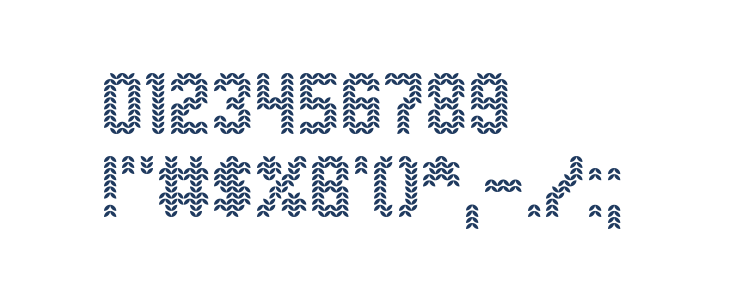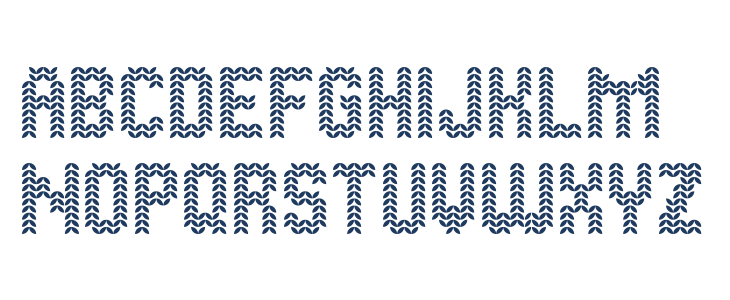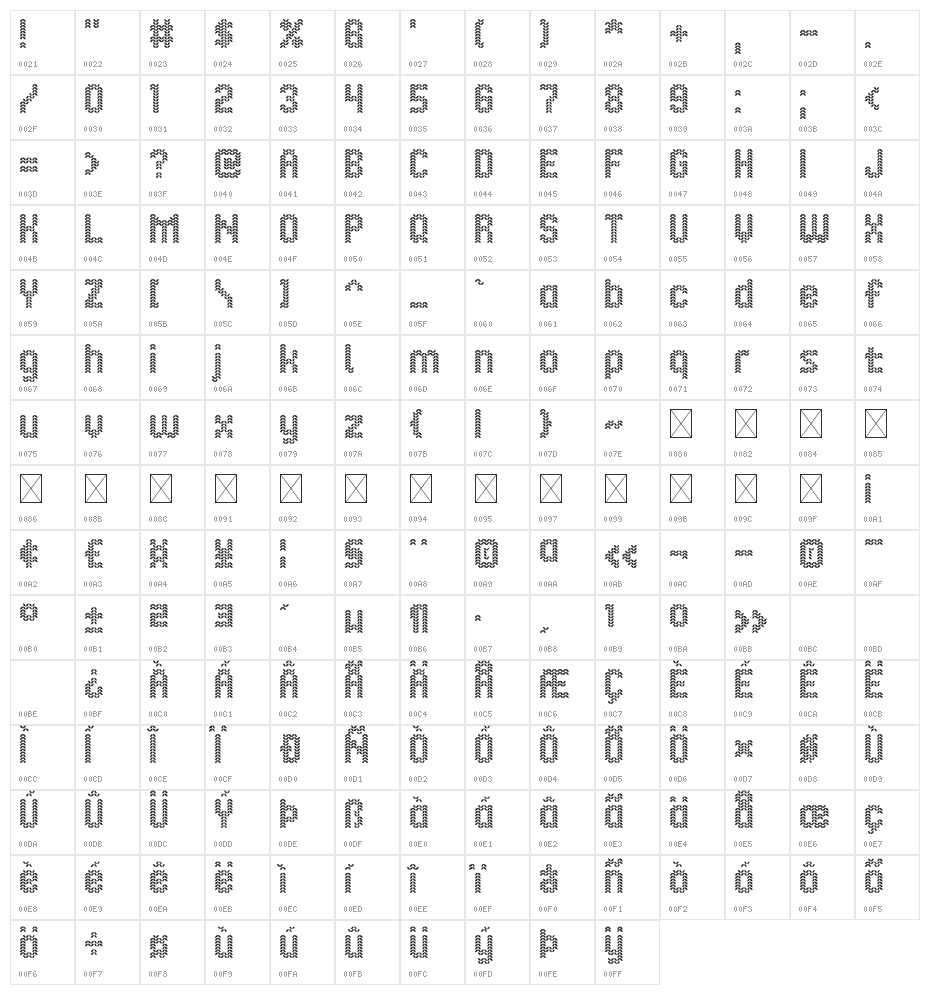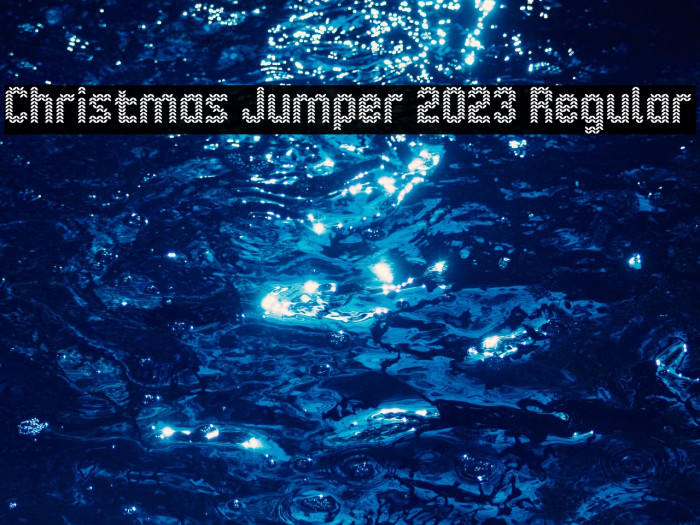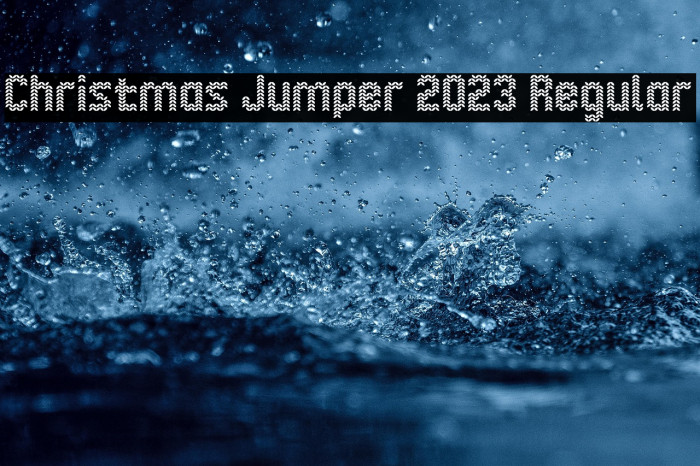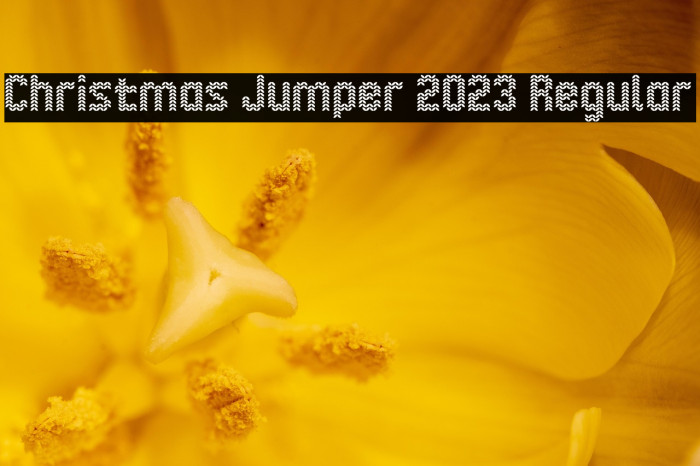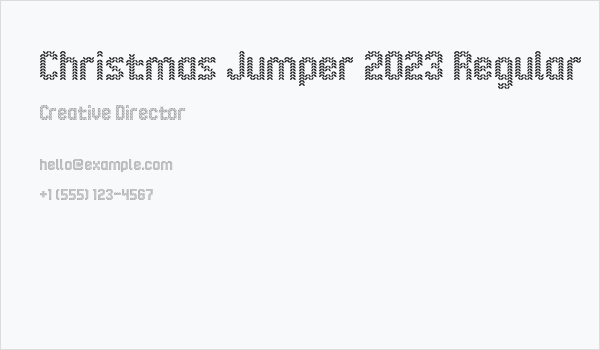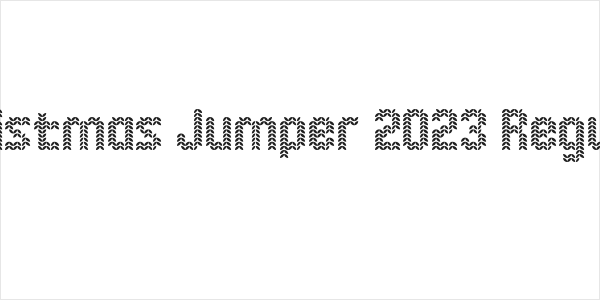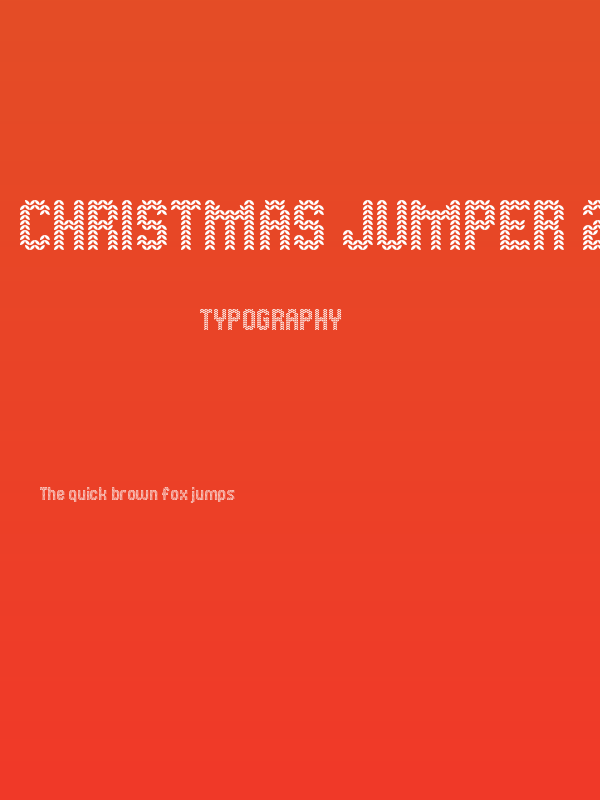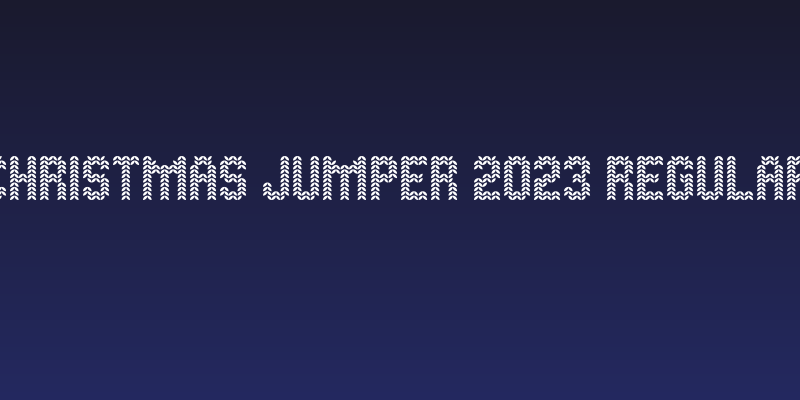
A decorative display font featuring a knitted, zigzag pattern reminiscent of traditional holiday sweater designs. The characters are bold, geometric, and evenly spaced, with a playful and festive appearance. The font maintains consistent stroke thickness and a uniform structure across uppercase, lowercase, numbers, and symbols.
| Overall Style | Decorative, Festive, Playful |
| Use Case | Headlines, Posters, Logos, Greeting cards |
| Proposed Projects | Holiday cards, Christmas event posters, winter-themed branding, festive packaging, seasonal social media graphics. |